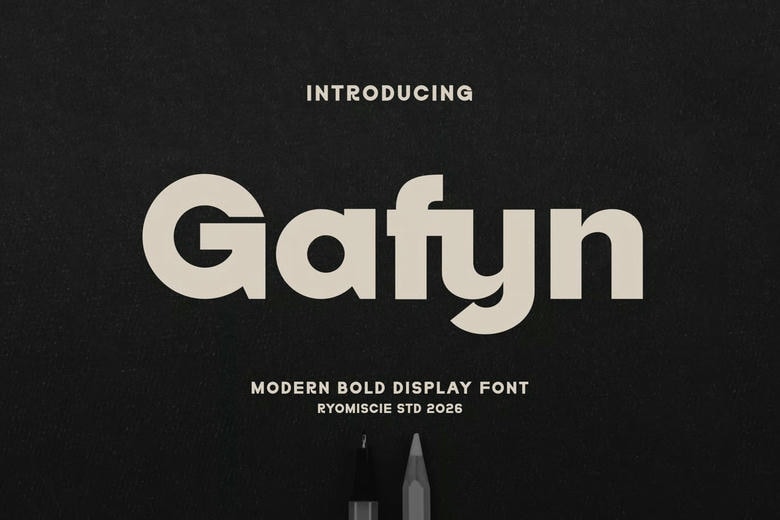
Gafyn Font
Gafyn Font – Modern Bold Display Font is a regular and authentic display font. The font is suitable for any branding project like logo, esport, and many more. outstanding in a wide range of contexts.
Gafyn Sans Serif Font